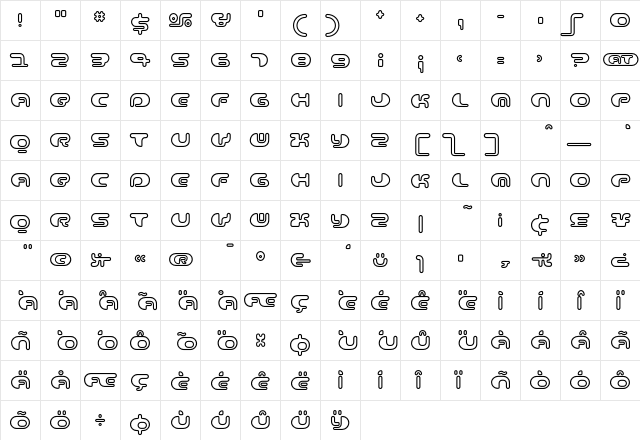
Contour Outline
Design Context for Contour Typeface
Contour brings ornamental detail and strong personality to headlines and identities, where visual impact matters more than quiet functionality.
Font Pairing: Pair with a clean neutral sans-serif for body copy to let Contour's character lead without overwhelming the composition.
Pro Tip: Use Contour exclusively at display sizes — it was designed to be seen, not read at length. Let a neutral companion handle body copy.